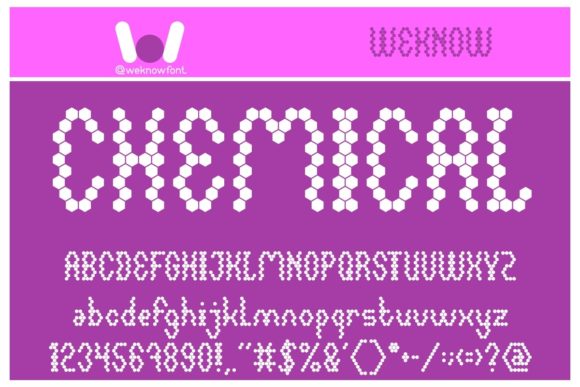
Unleash the futuristic appeal of your designs with Hexagonal, the techno-inspired display font that commands attention. Dive into a world of captivating aesthetics where your words transform into striking visuals. Let Hexagonal be the focal point of your logos, headlines, and corporate identities, leaving an unforgettable impression on your audience.
Journey through the realm of creativity, where Hexagonal's sharp angles and clean lines ignite the imagination. Elevate your apparel industry projects with designs that exude boldness and innovation. Craft posters that transport viewers to new dimensions, capturing their attention with every stroke. Let Hexagonal orchestrate the rhythm of your music-related designs, creating an immersive experience that resonates with every note.
Unlock the cinematic potential of your movie and game creations, where Hexagonal's futuristic allure captivates audiences. Design magazine and book covers that demand attention, evoking curiosity and inviting readers to delve into your captivating content. Unleash your inner artist with Hexagonal, the font that brings comic and cartoon characters to life, infusing them with a touch of the extraordinary.
Embark on a digital journey, where Hexagonal weaves its magic on YouTube and Instagram, captivating followers with visually stunning posts and stories. Transform your website into a futuristic wonderland, where Hexagonal's presence elevates user experience to new heights. Discover a font that defies convention, pushing the boundaries of creativity and leaving a lasting impact on your audience.